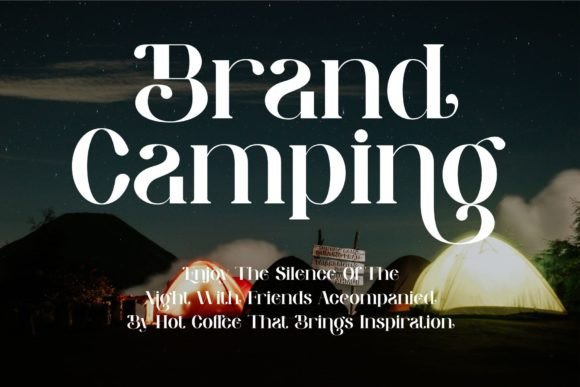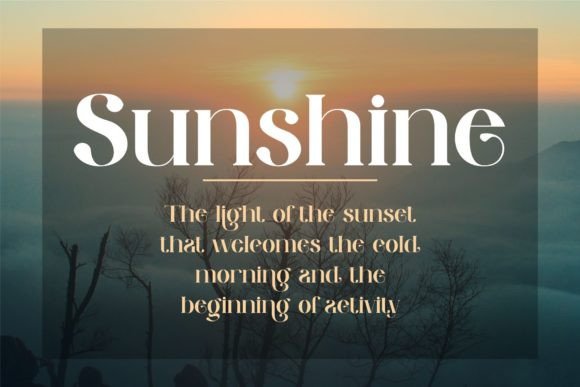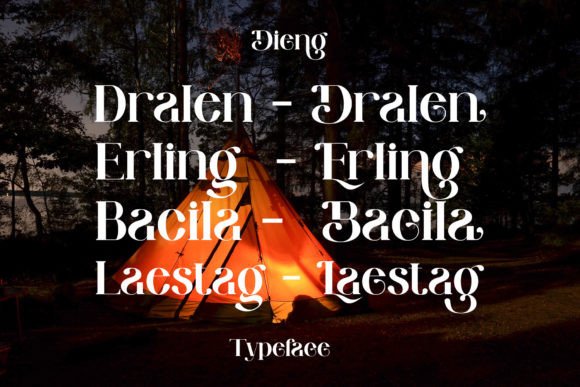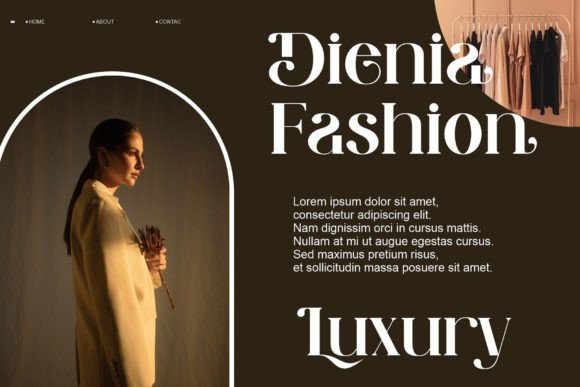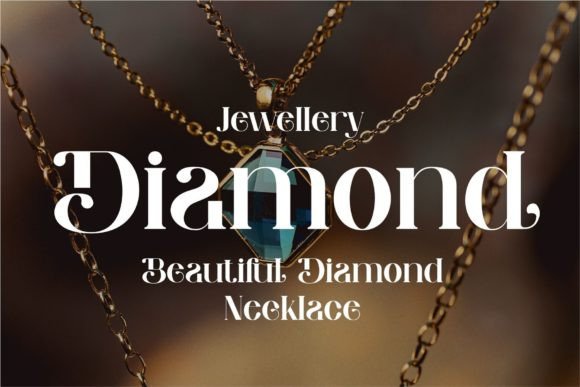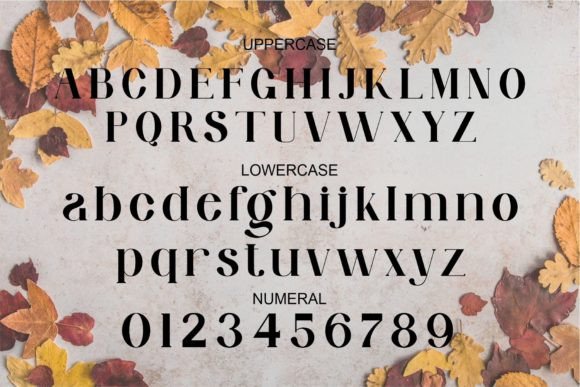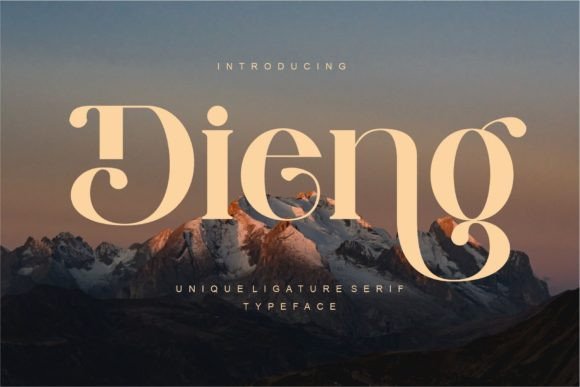
Introducing Dieng Font: A Timeless Serif Typeface for Modern Design
In the world of typography, a good font can make all the difference in creating a lasting impression. For designers and crafters, finding the perfect typeface that combines modernity with nostalgia can be a challenge. This is where Dieng Font comes in – a unique and classy serif typeface that is both modern and nostalgic. In this article, we’ll explore the features and benefits of Dieng Font, and how it can elevate your designs to the next level.
What is Dieng Font?
Dieng Font is a carefully crafted serif typeface that exudes elegance and sophistication. Its unique design combines the classic elements of traditional serif fonts with a modern twist, making it perfect for a wide range of design applications. Whether you’re creating a logo, magazine, social media post, or web design, Dieng Font is an excellent choice.
Key Features of Dieng Font
• Unique and Classy Design: Dieng Font boasts a distinctive and refined design that sets it apart from other serif typefaces.
• Modern and Nostalgic: The font seamlessly blends modern elements with a nostalgic feel, making it perfect for designs that require a touch of classic elegance.
• Versatile: Dieng Font works great for various design applications, including logos, magazines, social media posts, web designs, and more.
• Easy to Read: The font features clear and legible lettering, making it easy to read and understand.
Benefits of Using Dieng Font
So, why choose Dieng Font for your design projects? Here are some benefits of using this exceptional typeface:
• Enhance Your Brand’s Visual Identity: Dieng Font can help you create a unique and memorable visual identity for your brand.
• Add a Touch of Sophistication: The font’s classic and elegant design adds a touch of sophistication to any design project.
• Increase Legibility: Dieng Font’s clear and legible lettering ensures that your message is conveyed effectively.
• Stand Out from the Crowd: With its unique design, Dieng Font can help your design project stand out from the competition.
Design Applications for Dieng Font
Dieng Font is an incredibly versatile typeface that can be used in a wide range of design applications, including:
• Logo Design: Create a lasting impression with a unique and memorable logo.
• Magazine and Editorial Design: Add a touch of elegance to your magazine or editorial design.
• Social Media Design: Create engaging social media posts that stand out from the crowd.
• Web Design: Enhance your website’s visual identity with Dieng Font.
Tips for Using Dieng Font
To get the most out of Dieng Font, here are some tips to keep in mind:
• Experiment with Font Sizes: Find the perfect font size to suit your design needs.
• Play with Font Colors: Experiment with different font colors to add depth and contrast to your design.
• Pair with Other Fonts: Pair Dieng Font with other fonts to create a unique and visually appealing design.
In conclusion, Dieng Font is a unique and classy serif typeface that is both modern and nostalgic. Its versatility, elegance, and legibility make it an excellent choice for a wide range of design applications. Whether you’re a designer or crafter, Dieng Font is sure to elevate your designs to the next level. So, why not give it a try and experience the benefits of Dieng Font for yourself?